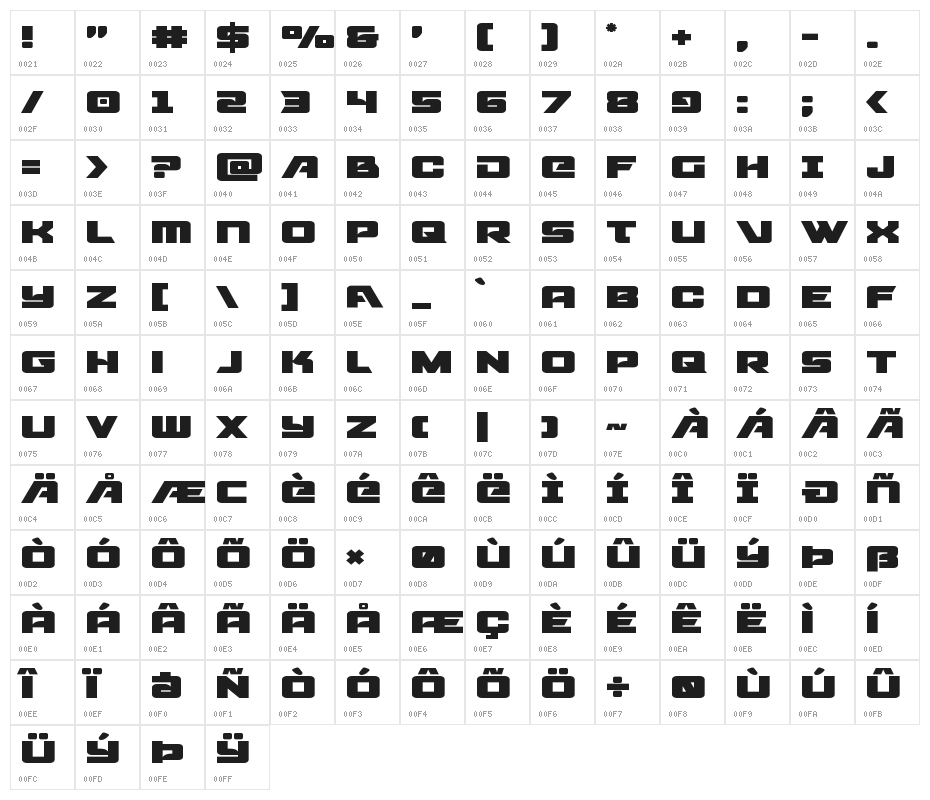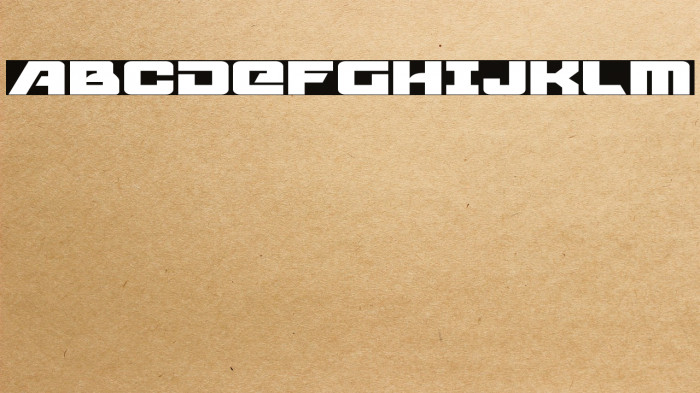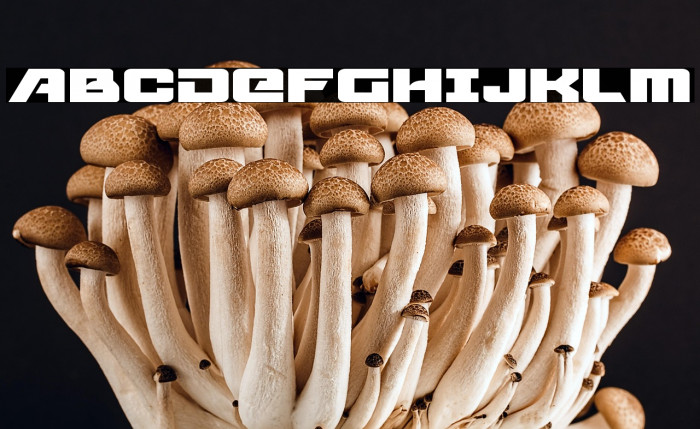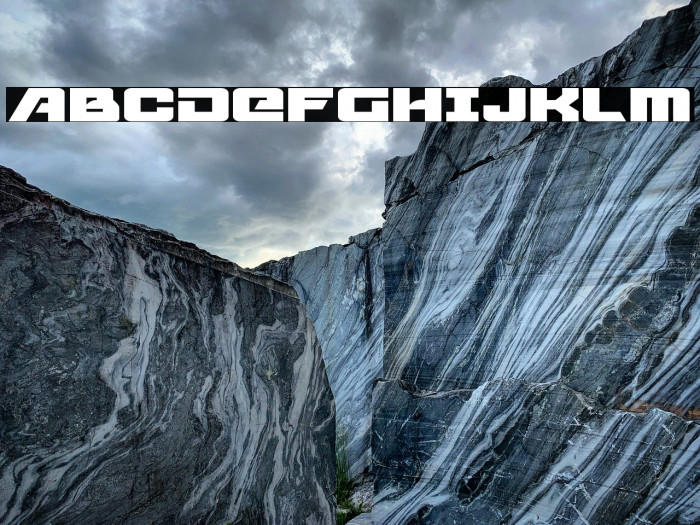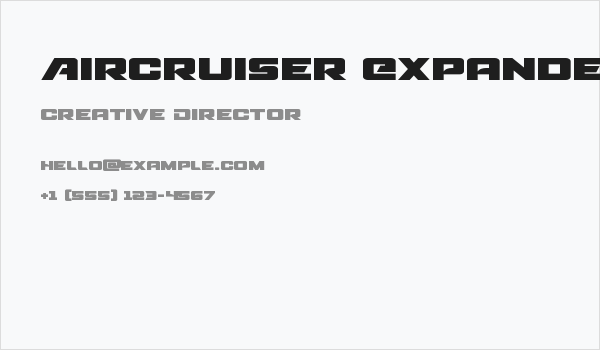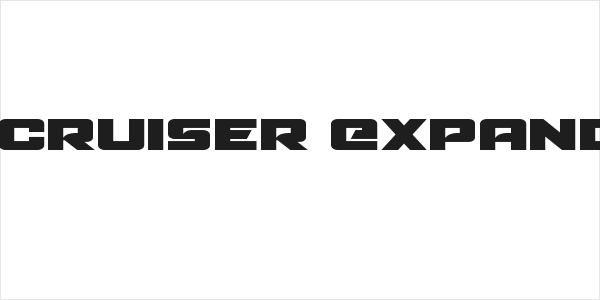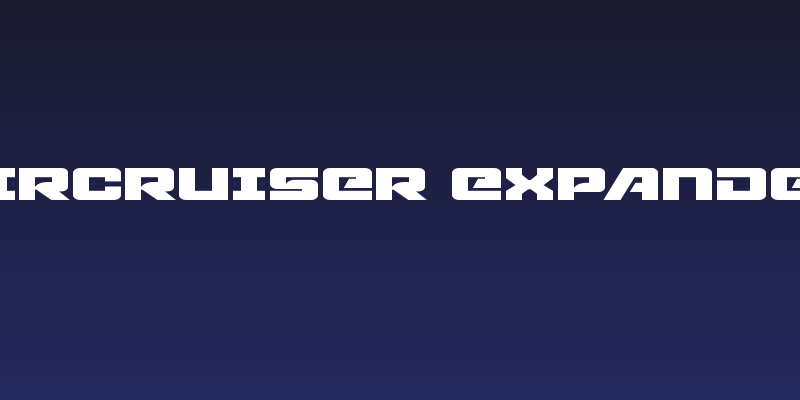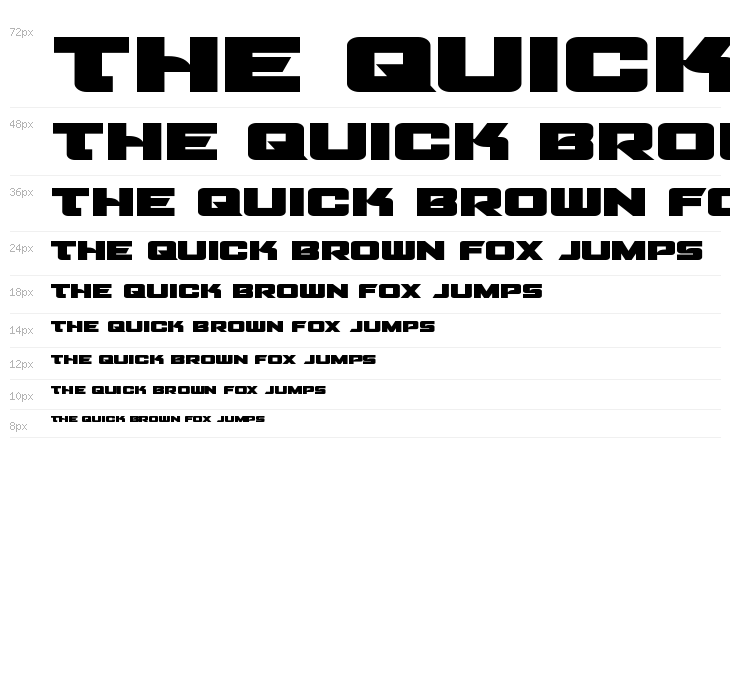
Aircruiser Expanded Font
Aircruiser Expanded Description
This font features a bold and expansive design, characterized by its geometric and angular shapes. The letters are uniformly wide, giving it a strong and impactful presence. The uppercase and lowercase letters maintain a consistent style, with sharp edges and a futuristic aesthetic. The numbers and special characters follow the same design principles, ensuring a cohesive look across all elements. This font's distinct style makes it suitable for projects that require a modern and assertive typeface.
| Proposed Projects | Ideal for branding, posters, video game titles, and any project needing a modern, bold statement. |